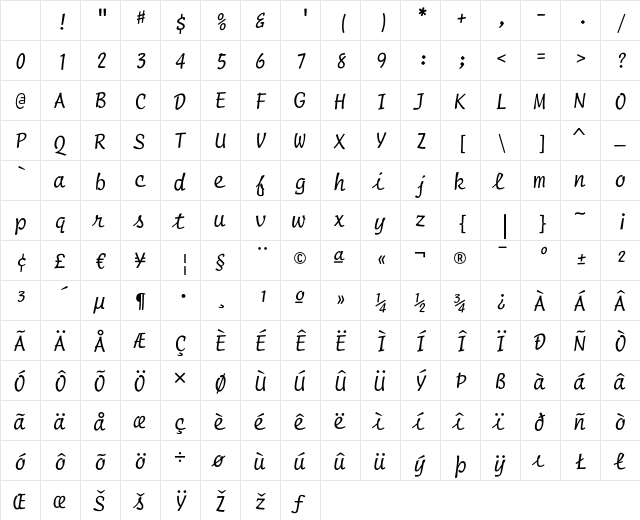
Complete Script 12 Pitch Regular glyph index. Displaying only characters natively supported by Script 12 Pitch Regular font.
Script 12 Pitch flows with the natural rhythm of handwritten lettering, making it ideal for designs that call for warmth and personal expression.
Font Pairing: Combine Script 12 Pitch with a simple geometric sans for maximum contrast - the tension between flowing curves and clean structure is a classic typographic pairing.
Pro Tip: Use Script 12 Pitch for short runs of text - names, titles, or taglines. Extended body copy in script faces tires the eye quickly.